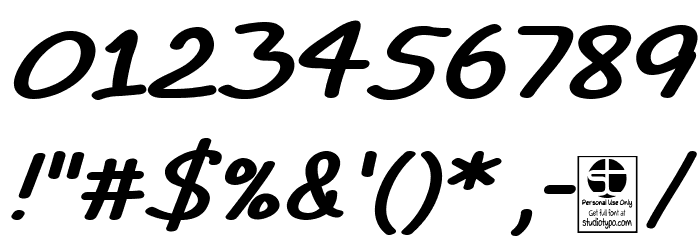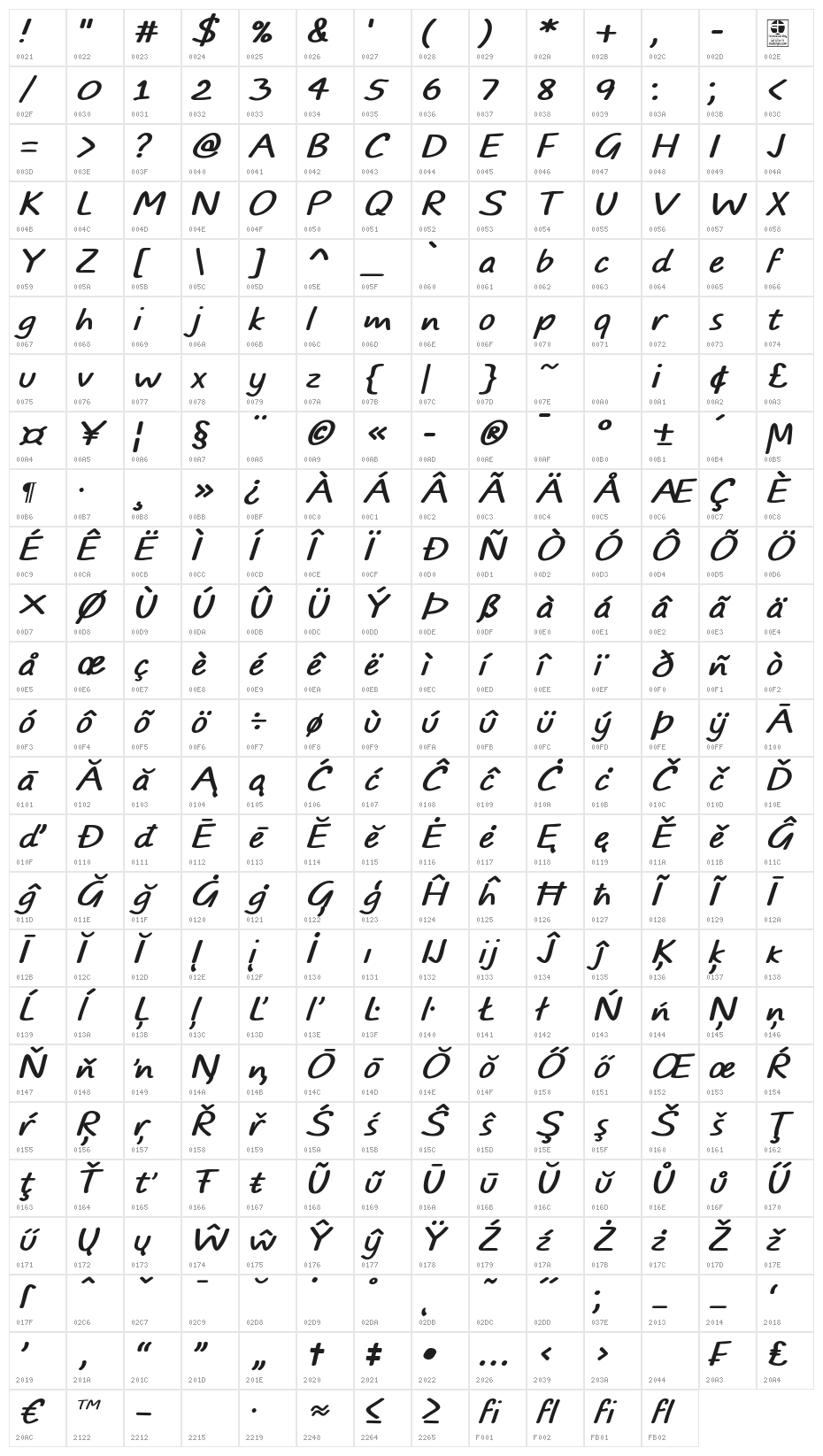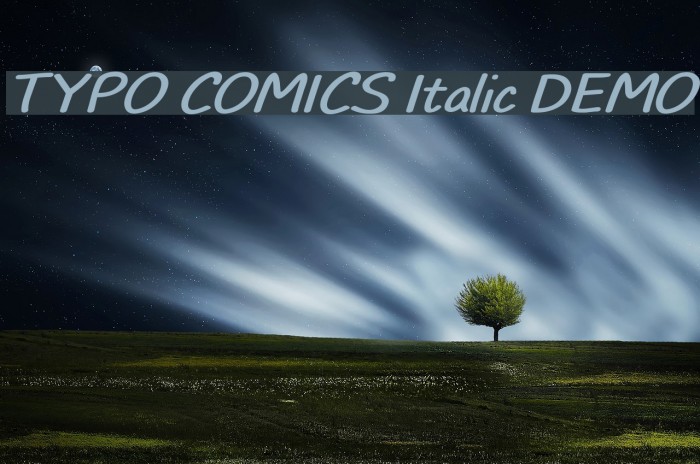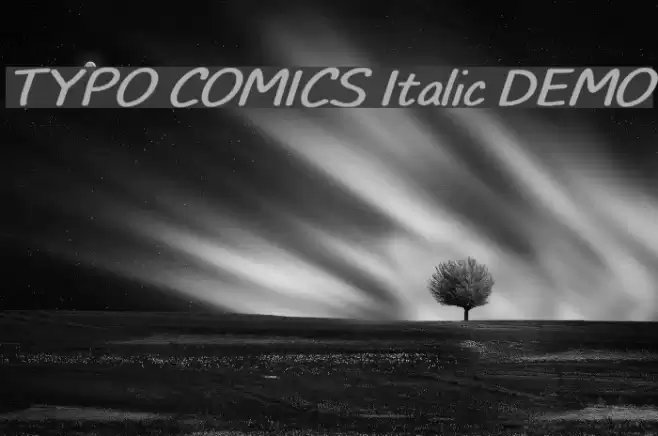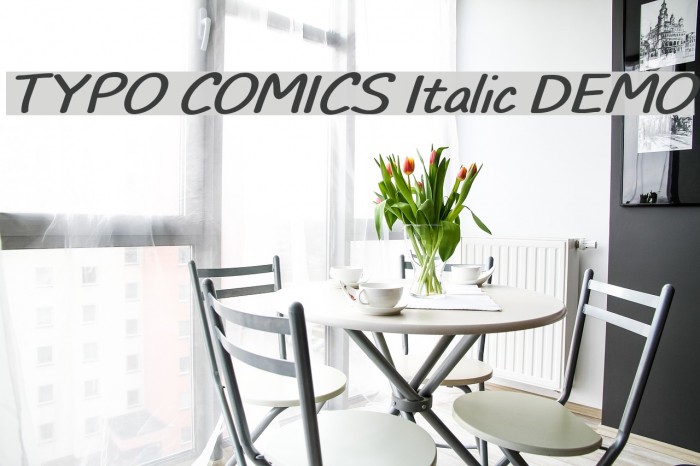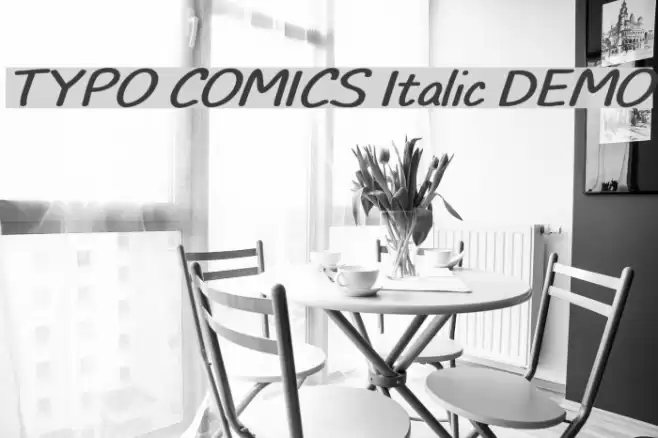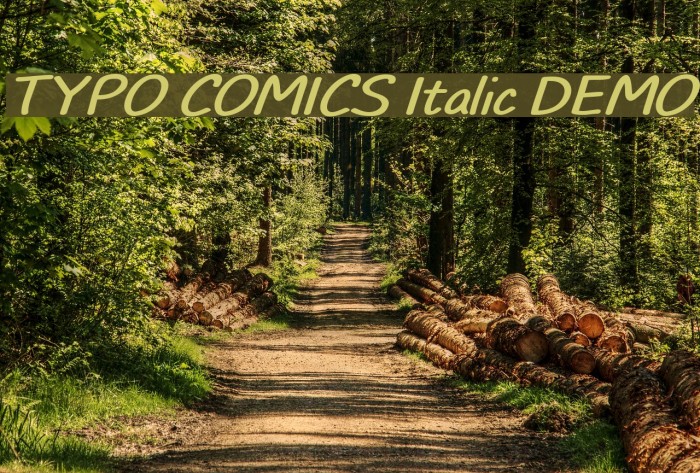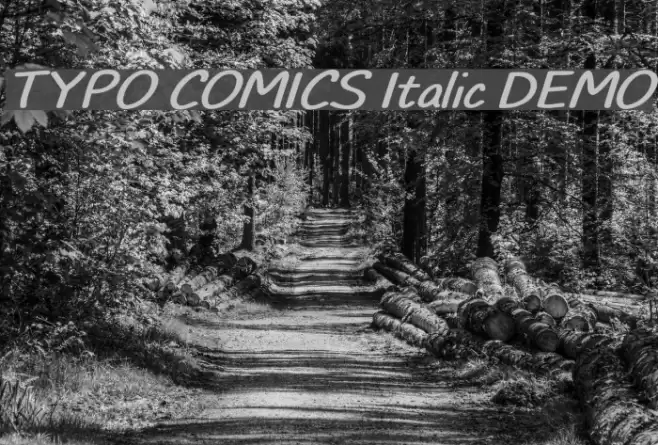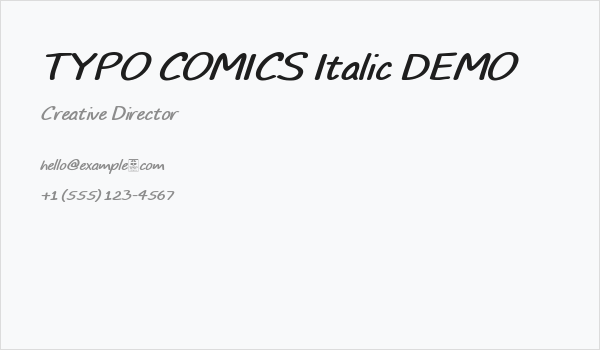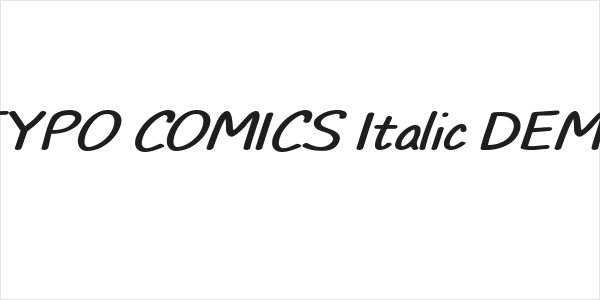
TYPO COMICS Italic DEMO Font
TYPO COMICS Italic DEMO Description
This font features a playful and dynamic style with a handwritten appearance. The characters are slightly slanted, giving it an italicized look that adds a sense of motion and energy. The strokes are smooth and rounded, contributing to a friendly and approachable feel. The uppercase and lowercase letters maintain a consistent flow, while the numerals and special characters are designed to complement the overall aesthetic. This font is ideal for projects that require a personal touch or a casual, informal vibe.
| Proposed Projects | Ideal for comic books, children's books, casual branding, and playful invitations. |